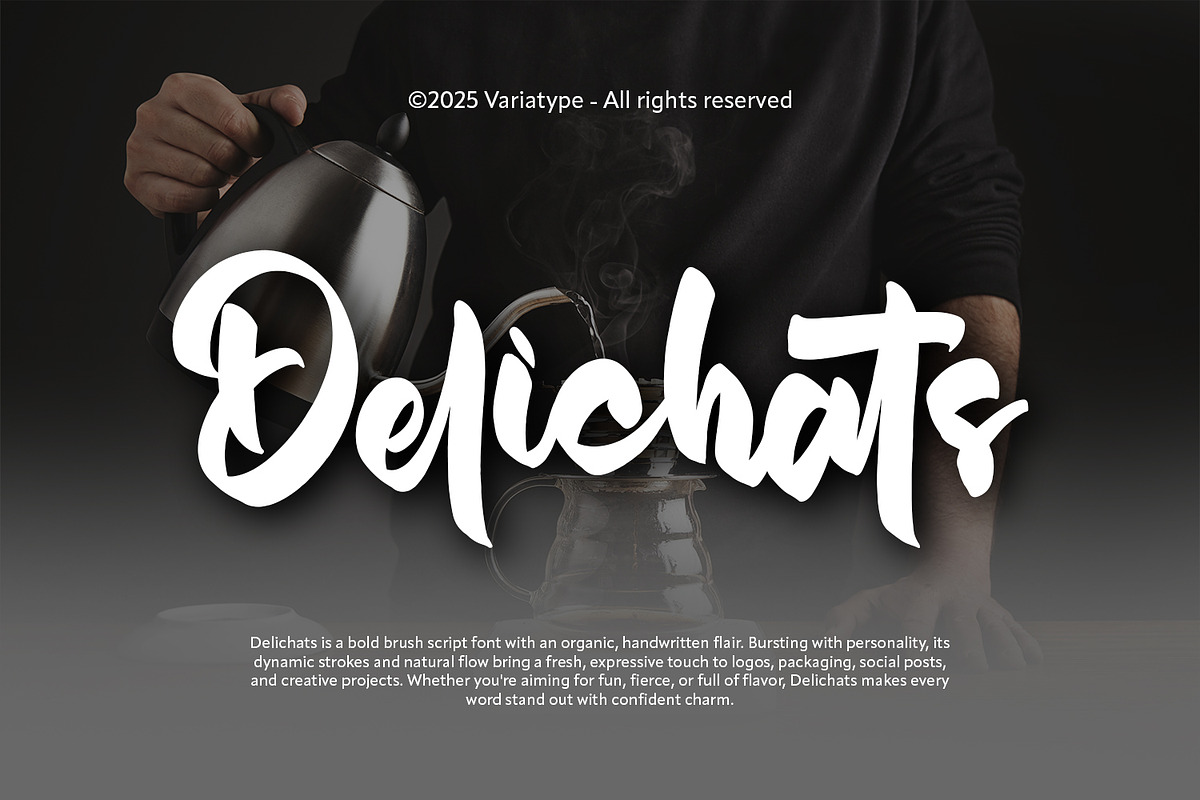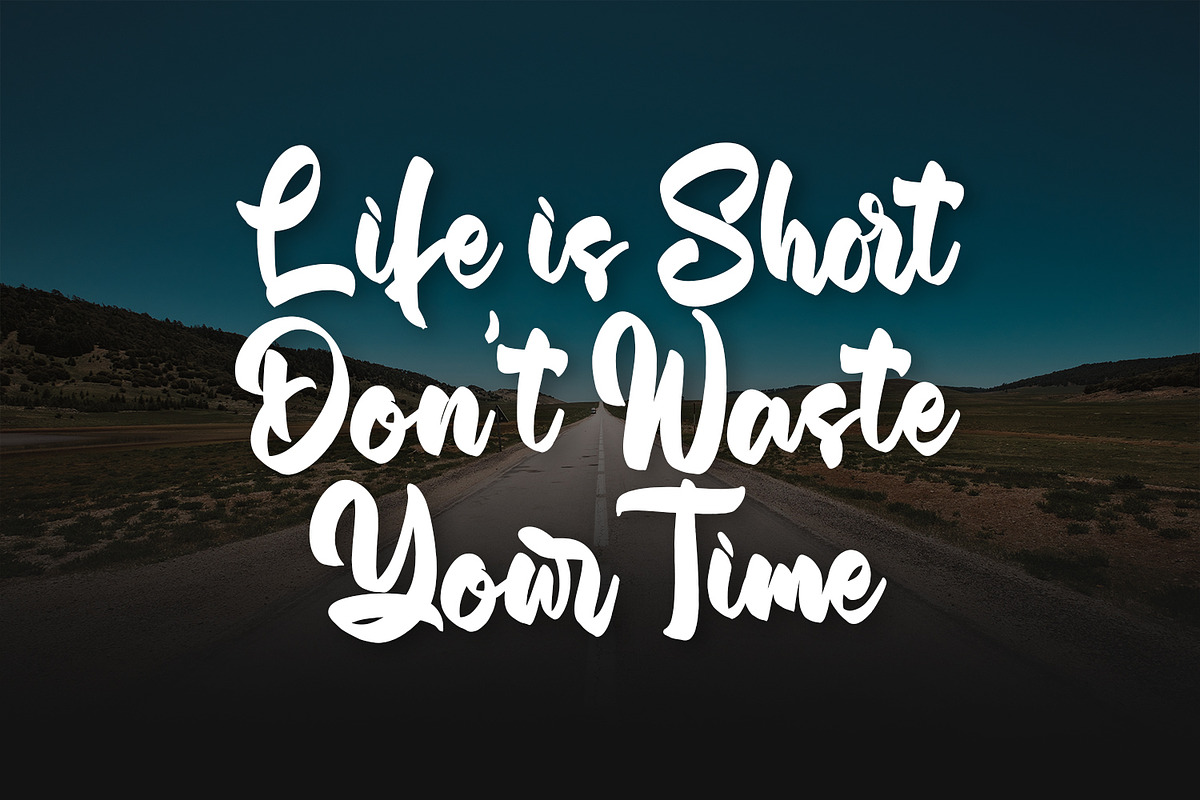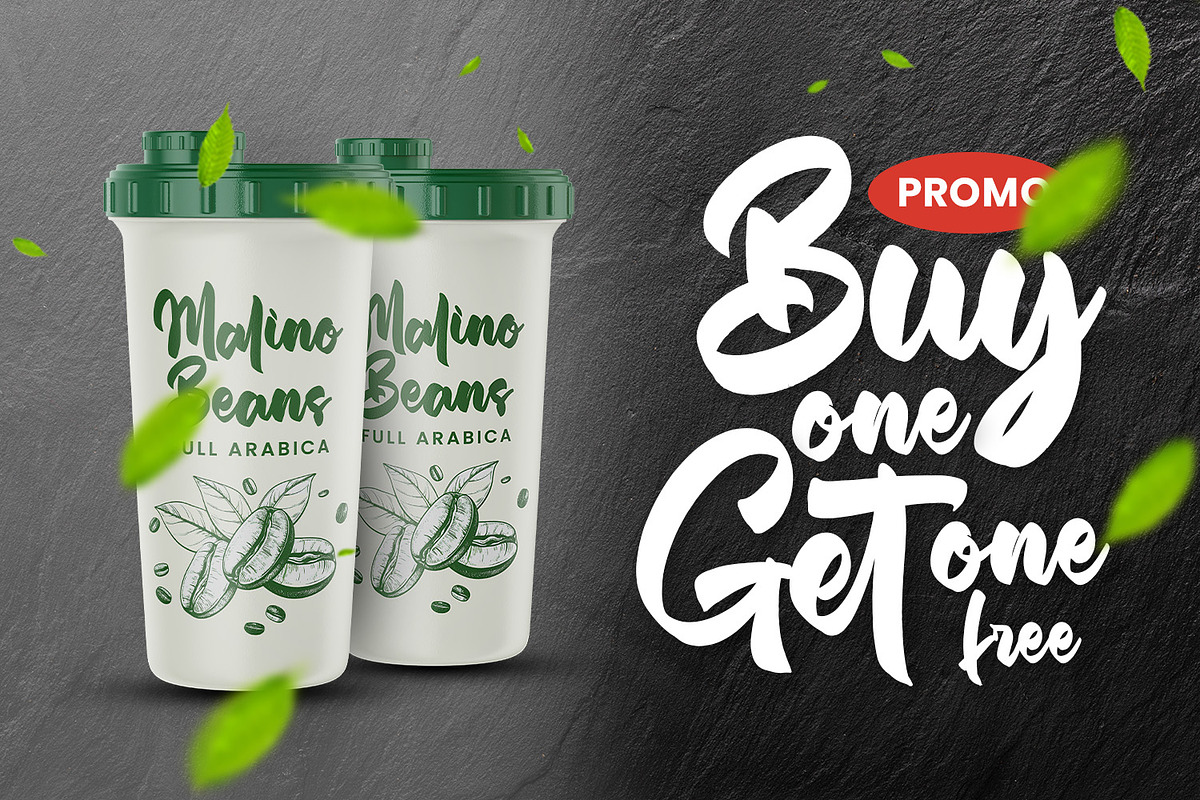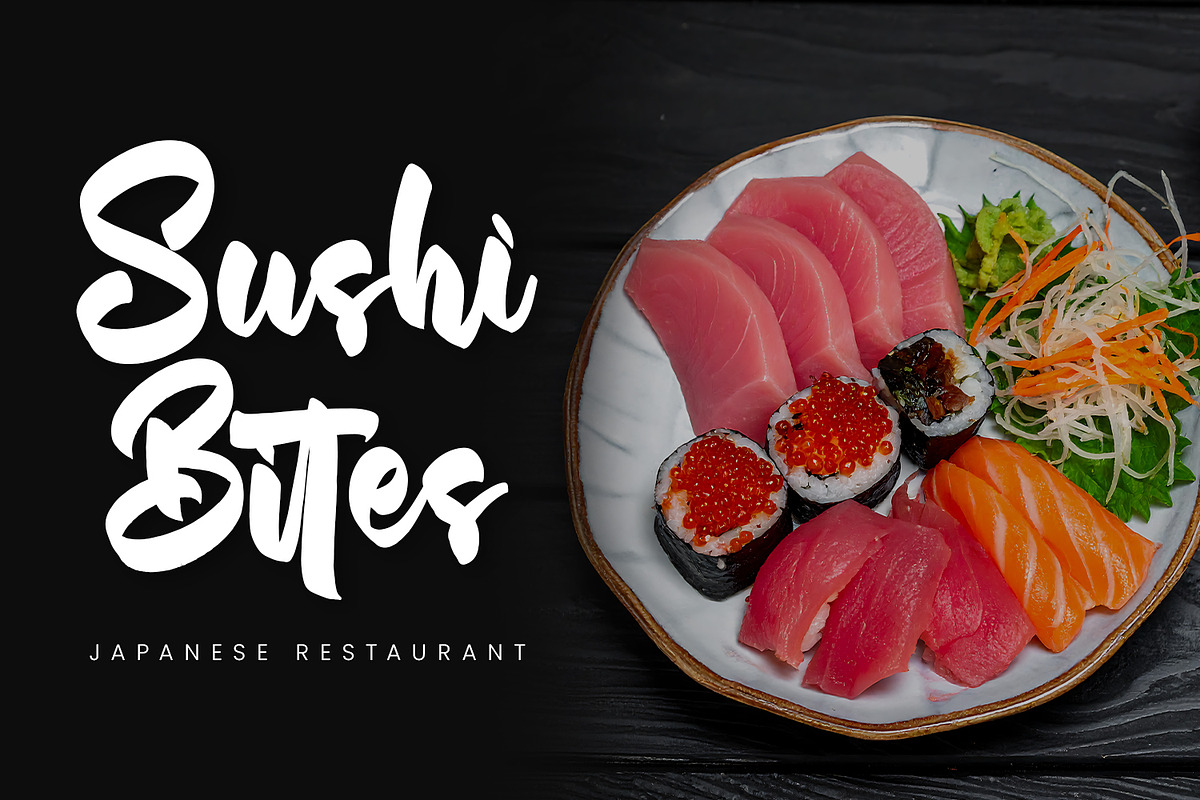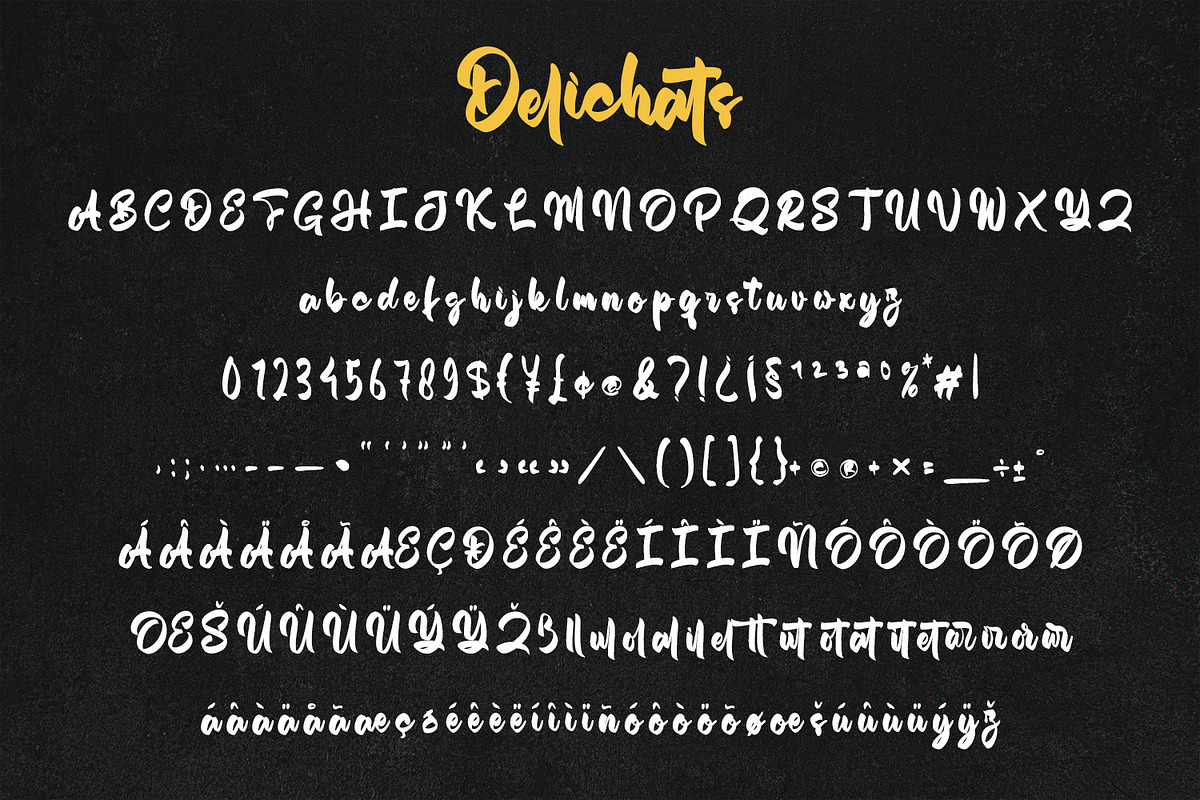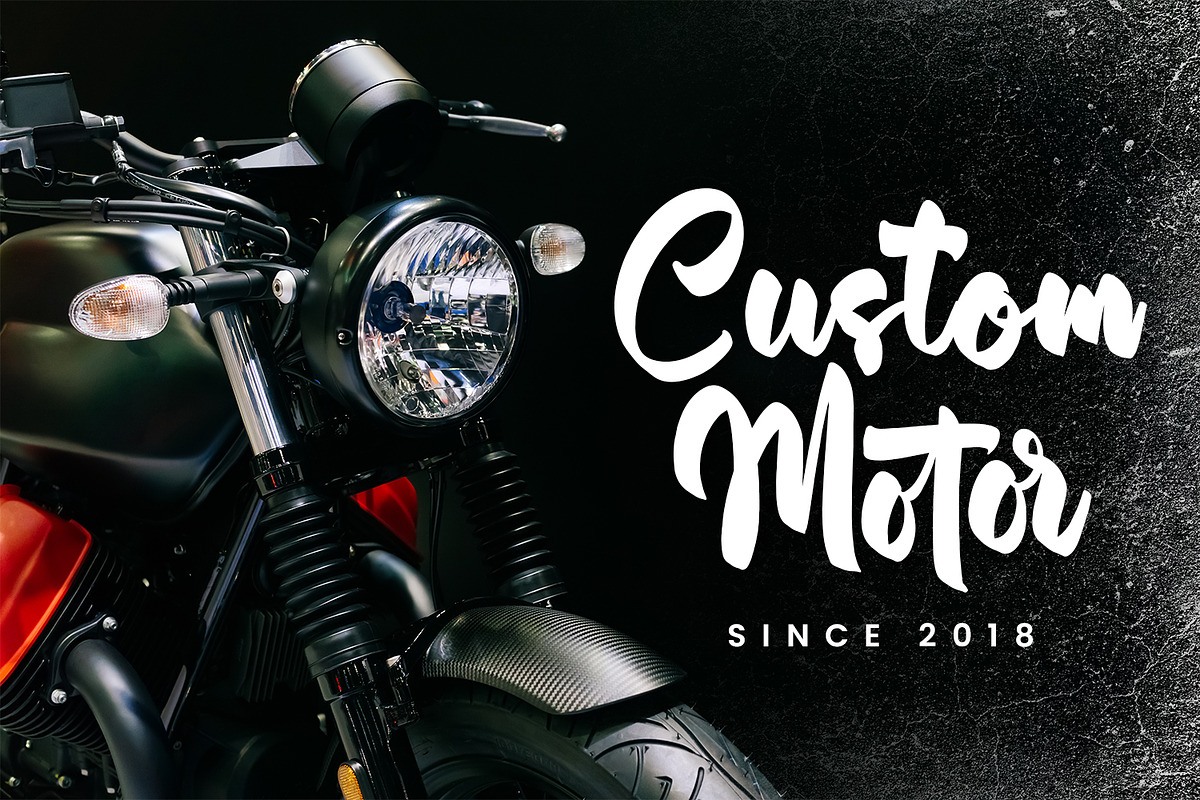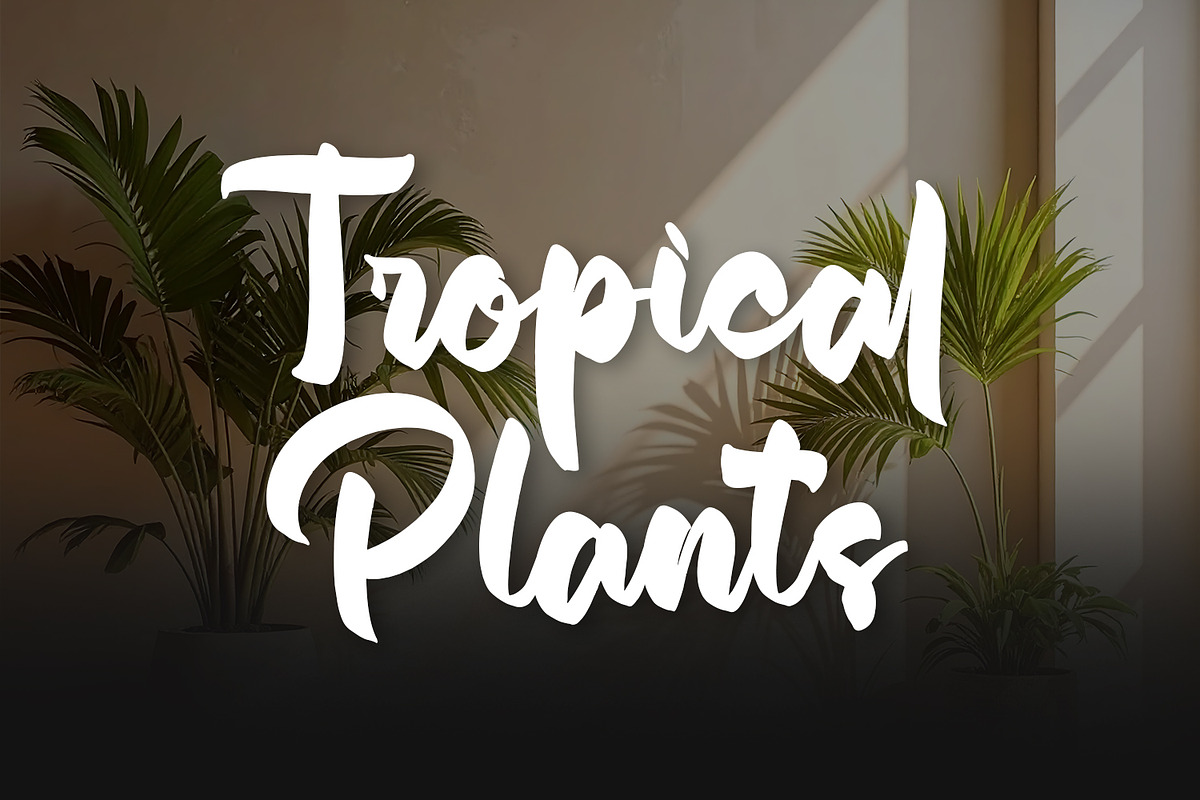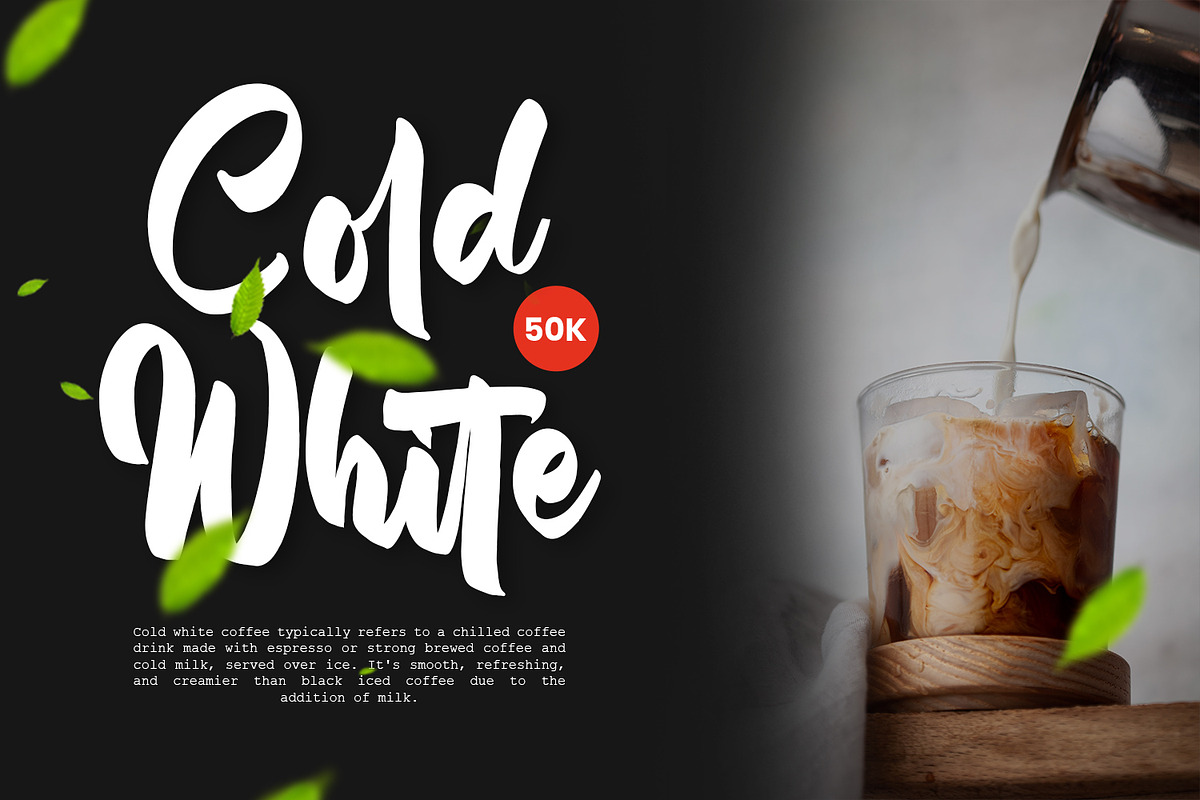
Delichatz - Bold Brush Script
Delichats is a bold brush script font with an organic, handwritten flair. Bursting with personality, its dynamic strokes and natural flow bring a fresh, expressive touch to logos, packaging, social posts, and creative projects. Whether you’re aiming for fun, fierce, or full of flavor, Delichats makes every word stand out with confident charm.
Additional Accents
68 Languages
Kerning